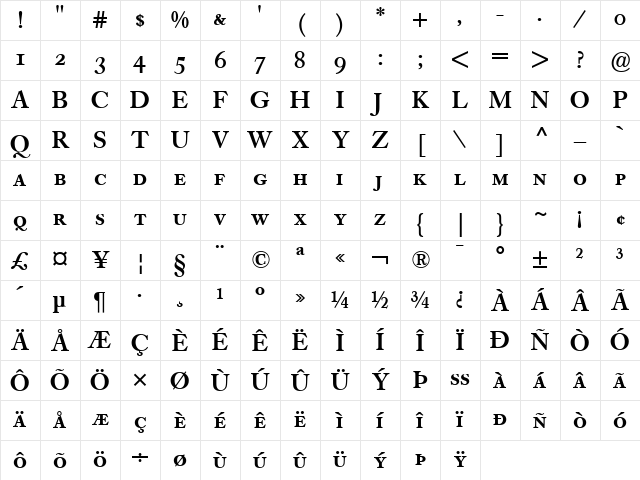
Complete Caslon Book BE Bold glyph index. Displaying only characters natively supported by Caslon Book BE Bold font.
Caslon Book BE is a composed and adaptable typeface that performs quietly and consistently across a wide range of design contexts. Its bold stroke weight gives it real presence on the page.